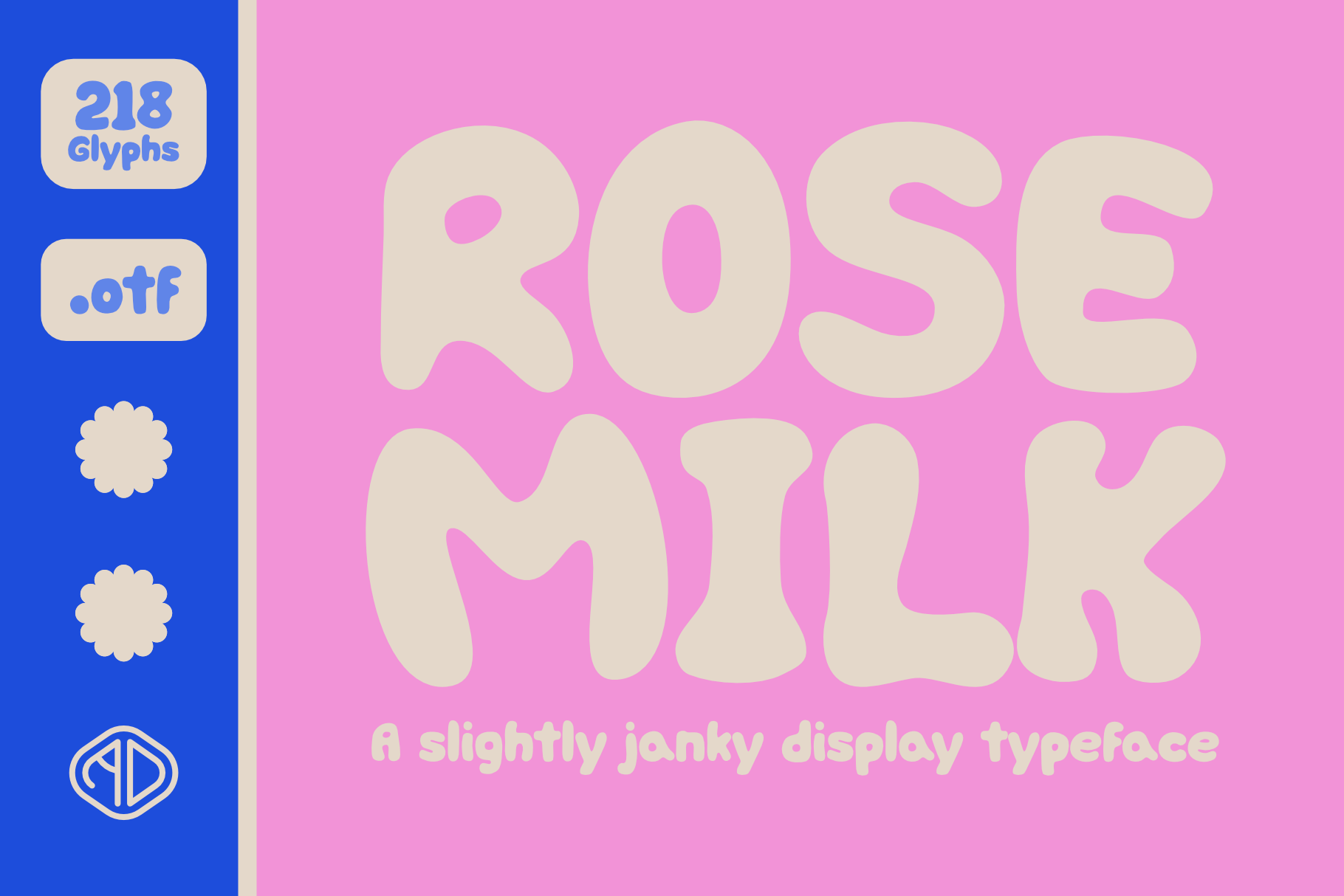
Rose Milk - A janky new display font
Are you tired of using perfectly smooth and symmetrical font? Want to add some wabisabi into your stuff? Try RoseMilk! This sweet font has some serious personality! When you download this typeface, you get: 218 seriously sassy glyphs